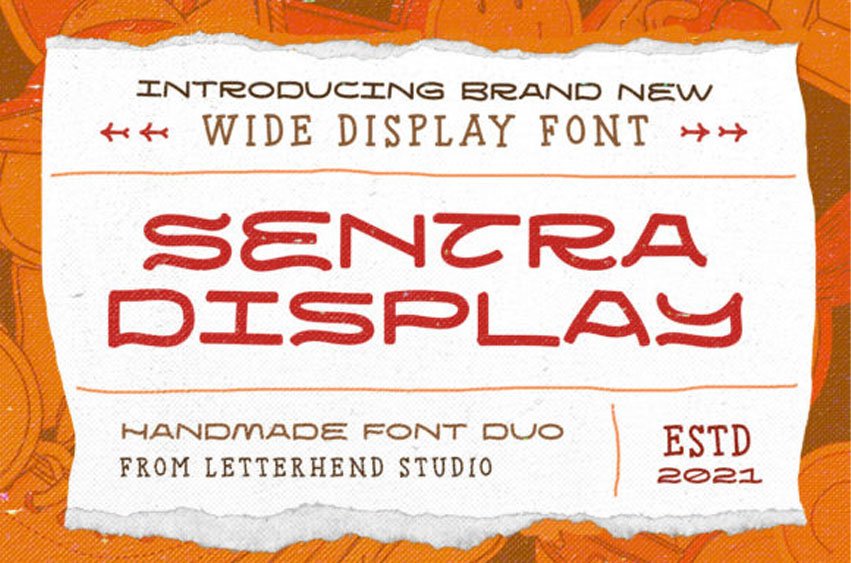
Sentra Font
Sentra Font is a whimsical and vintage styled display font.
Simple but with a strong visual effect, this font will instantly make your creation more appealing than any others.